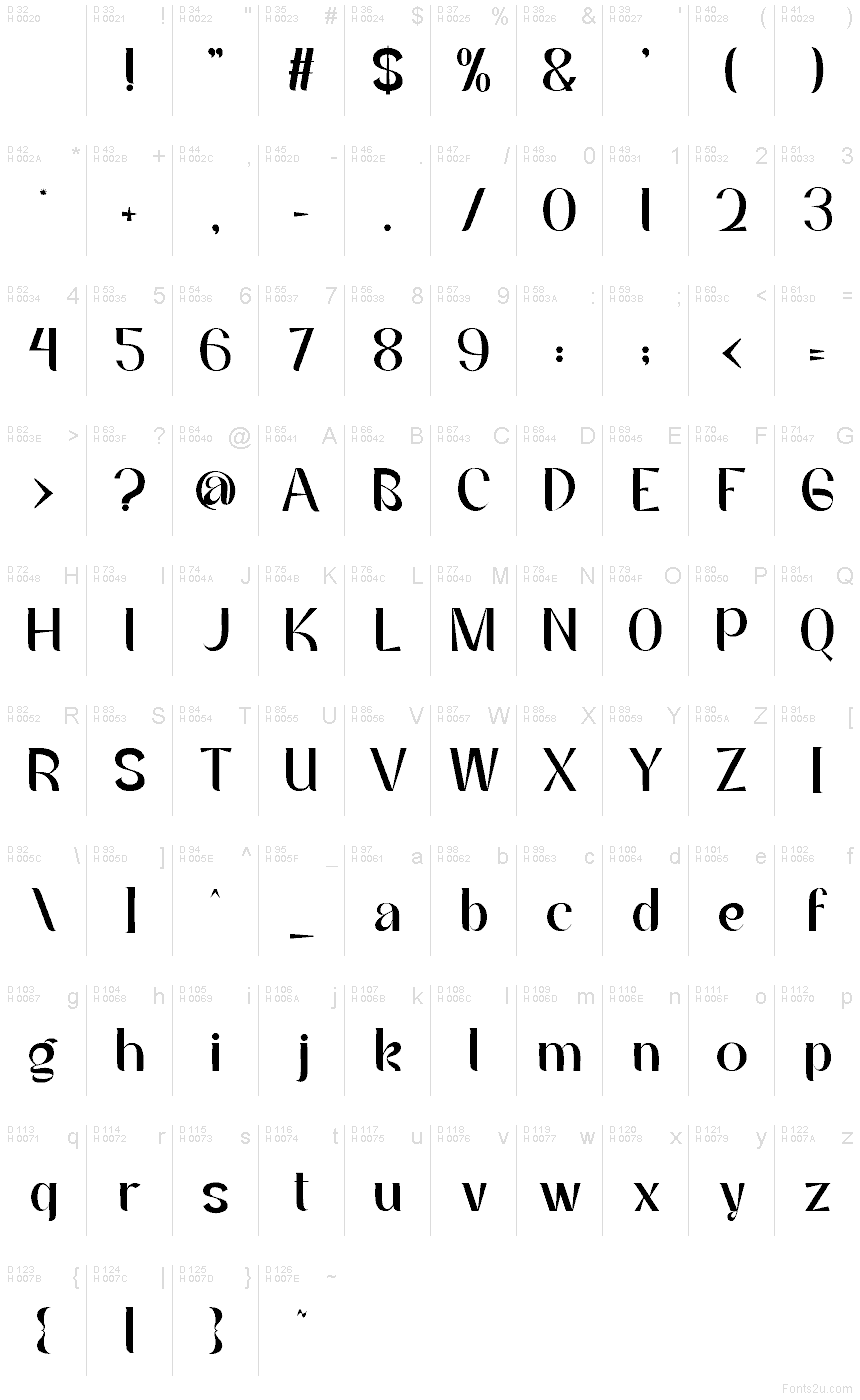
Agasiz
Agasiz font by PutraCetol Studio is a stylish and sophisticated free display font with a slight retro influence. Each character is designed with similar distinctive curves that communicate elegance, modernity, and artistic flair; the kind of qualities anyone would desire to have in their design.
Put Agasiz to use in your logotypes, magazine covers, advertisements, invitations, or any other designs where you need attention-grabbing text. With careful usage in small quantities and at large sizes, this font can also enhance poster and packaging designs.